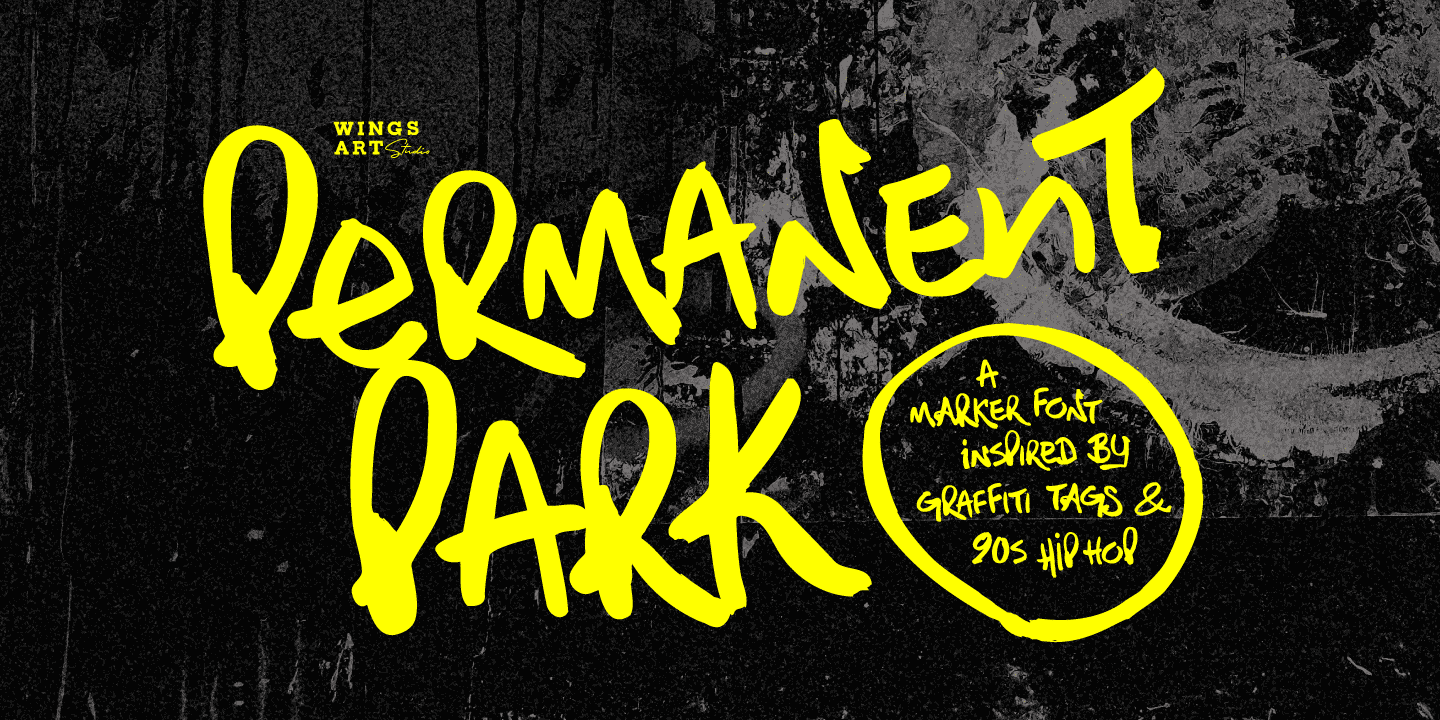
Permanent Park Font is perfect for national park branding, outdoor recreation companies, nature conservation campaigns, camping gear labels, hiking trail signage, environmental education materials, wilderness retreat centers, eco-tourism businesses, and outdoor adventure social media content. This enduring typeface brings natural permanence and outdoor heritage to both digital and print design applications.
Permanent Park Font is exciting because it embodies the timeless stability and enduring beauty of protected natural spaces, making it an exceptional choice for designers who want to convey environmental stewardship with authentic outdoor appeal. Its sturdy letterforms and established character provide the perfect combination of natural durability and functional reliability, ensuring your projects communicate conservation values, outdoor excellence, and environmental permanence that resonates with audiences seeking genuine nature experiences and conservation commitment.
The Permanent Park Font family includes conservation weight variations and natural elements, featuring light, regular, and bold weights with complementary outdoor styles, nature-inspired ligatures, and environmental decorative flourishes. Each style maintains consistent conservation aesthetics while offering flexibility for different outdoor applications, allowing designers to create enduring visual systems that reflect environmental values and natural preservation principles.
Whether you're designing for environmental organizations, outdoor recreation brands, or conservation projects, Permanent Park Font Free Download delivers authentic natural appeal and conservation sophistication that connects with audiences seeking genuine outdoor experiences and environmental stewardship. This premium typeface offers designers the natural durability and conservation elegance needed to create designs that communicate environmental responsibility, outdoor heritage, and conservation excellence effectively. The font's enduring character makes it perfect for conservation branding, outdoor campaigns, and environmental applications where authentic natural credibility is essential. Download Permanent Park Font today and preserve your creative projects with genuine conservation sophistication and natural typography excellence that defines environmental design standards.